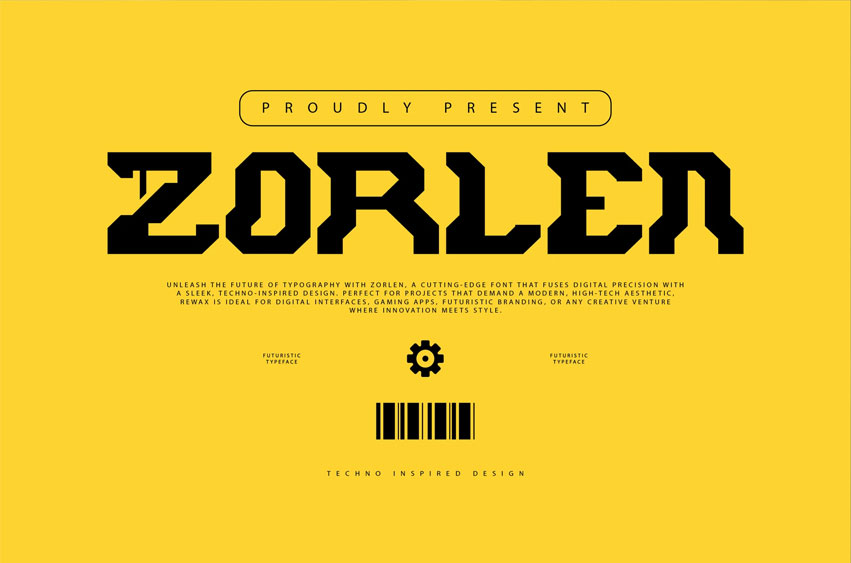
Zorlen Font Unleash the future of typography with Zorlen, a cutting-edge font that fuses digital precision with a sleek, techno-inspired design.
Perfect for projects that demand a modern, high-tech aesthetic, Rewax is ideal for digital interfaces, gaming apps, futuristic branding, or any creative venture where innovation meets style.